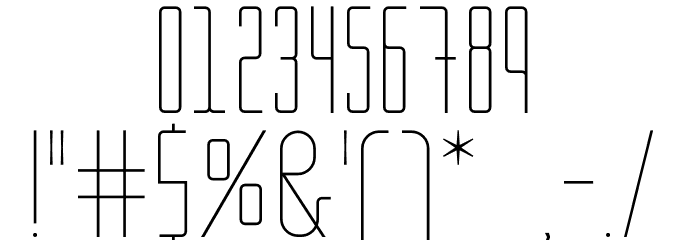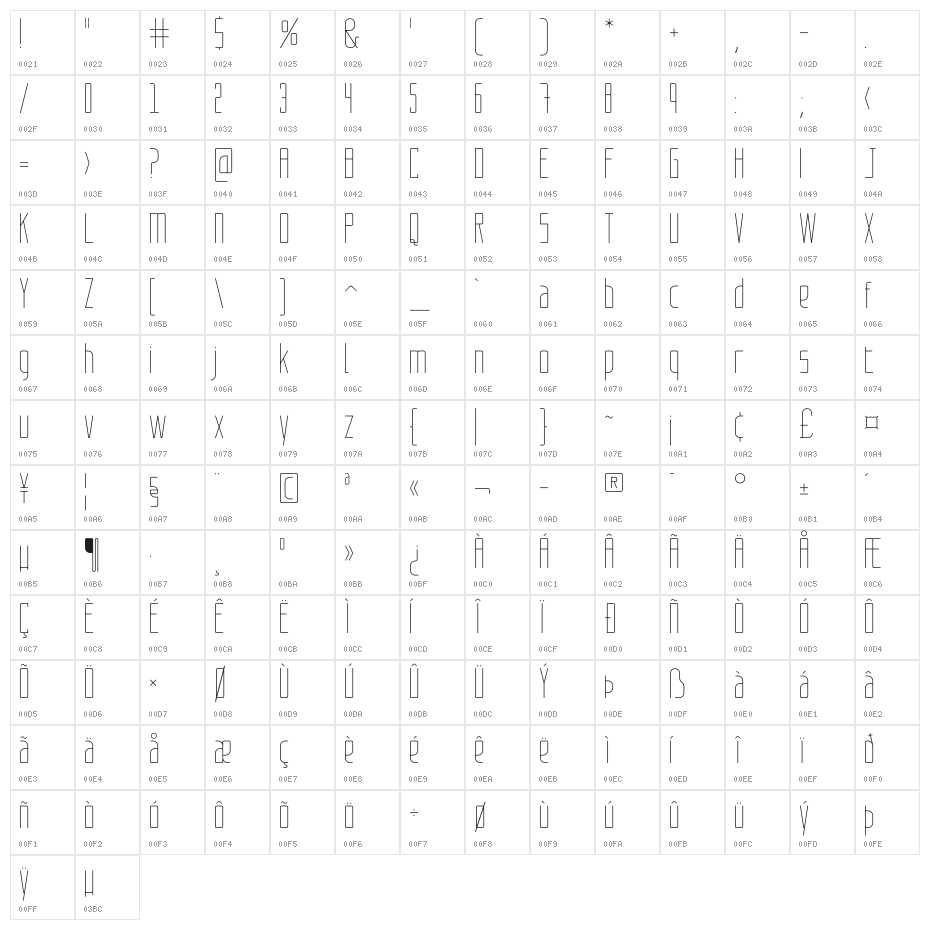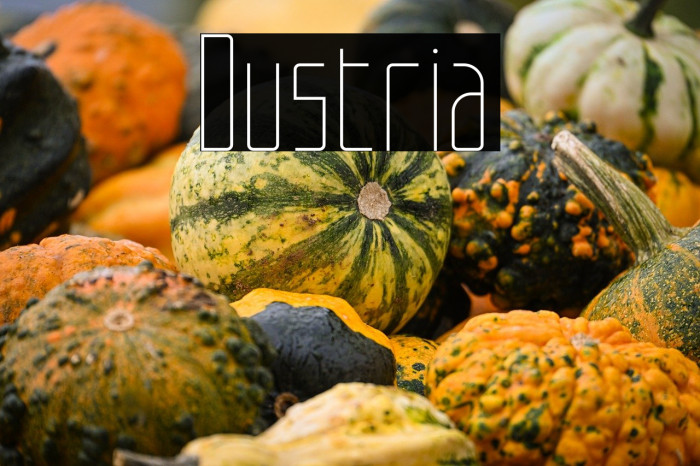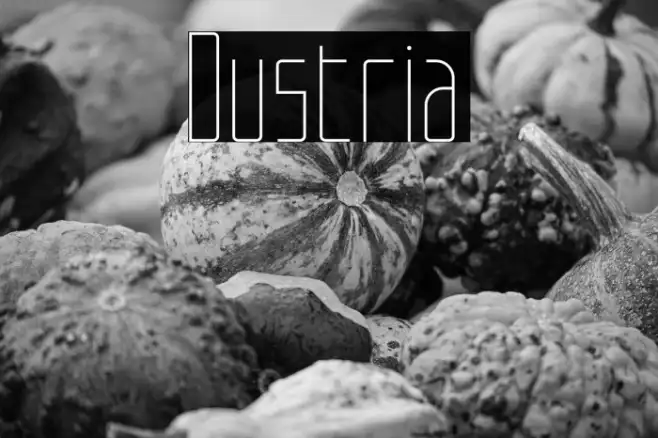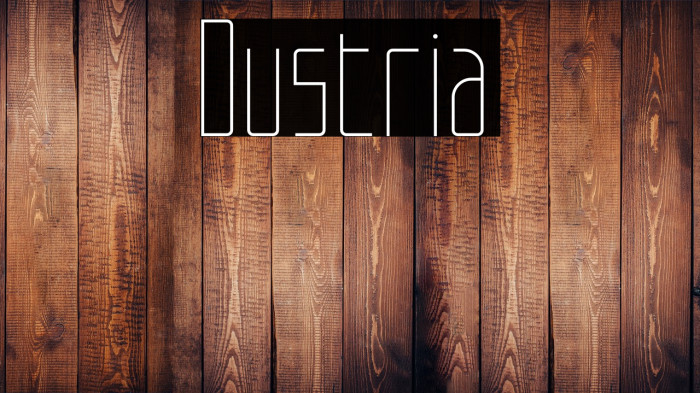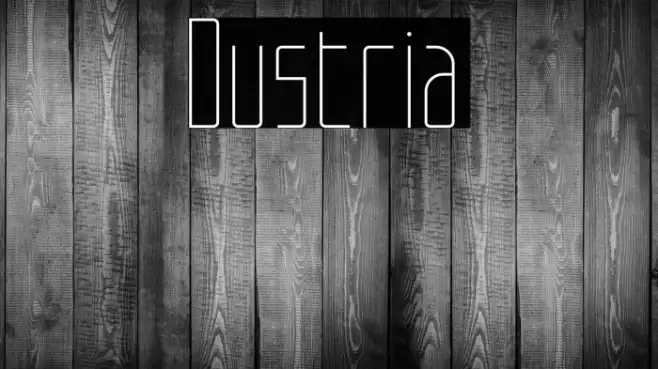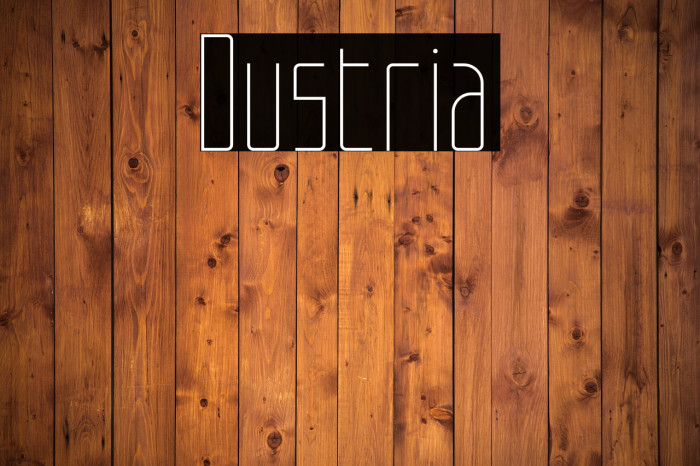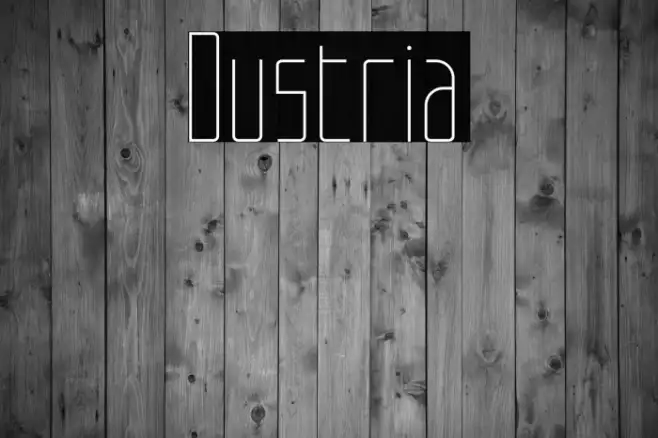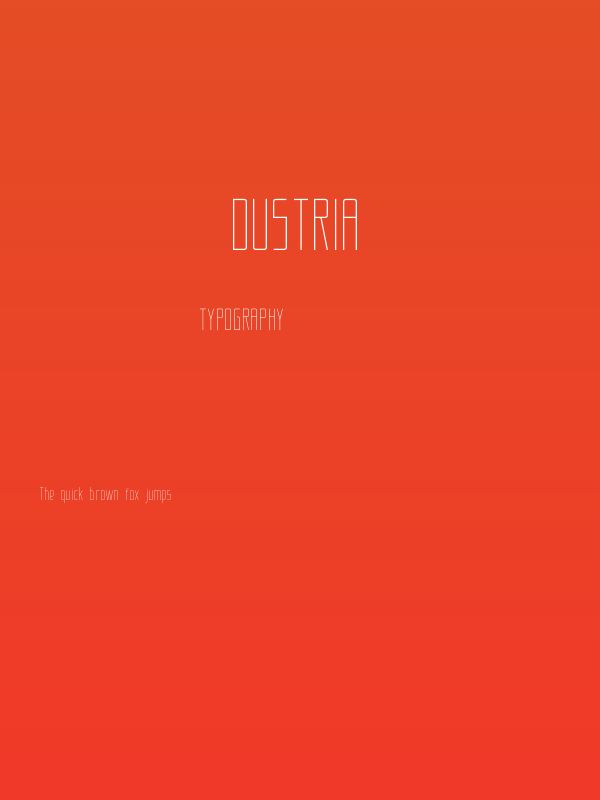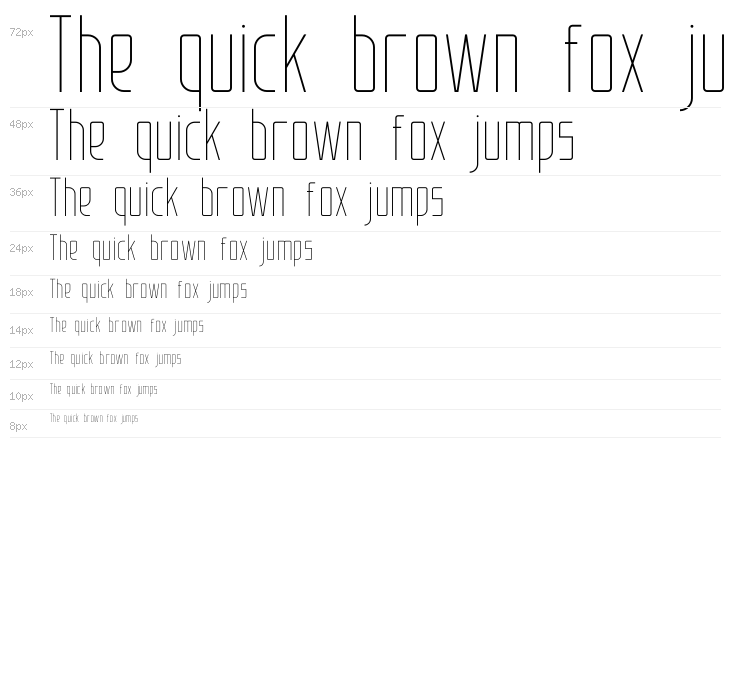
Dustria Font
Dustria Description
This font features a sleek and modern design with elongated, narrow characters that give it a futuristic and minimalist appearance. The uppercase and lowercase letters maintain a consistent height, contributing to its uniform and structured look. The thin strokes and geometric shapes create a sense of elegance and sophistication, making it suitable for contemporary design projects. The numerals and special characters are designed with the same attention to detail, ensuring a cohesive visual style throughout. Its clean lines and open forms enhance readability while maintaining a stylish aesthetic.
| Proposed Projects | Ideal for tech branding, modern websites, futuristic posters, and minimalist graphic design projects. |